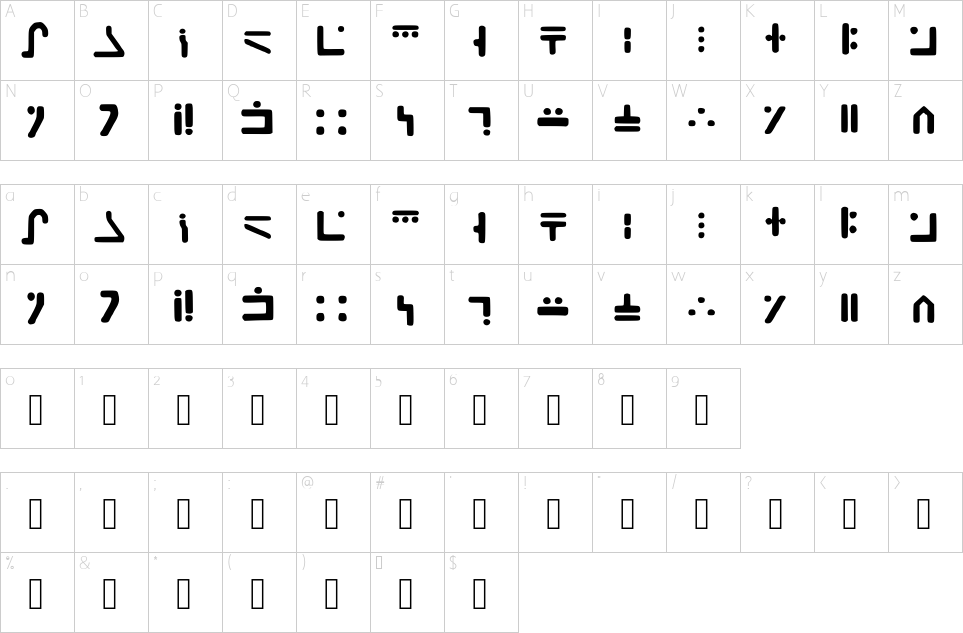
Minecraft Enchantment Table Font
Minecraft Enchantment Table Font - The minecraft enchantment table uses the standard galactic alphabet, originally from commander keen. Web this translator translates english to the standard galactic alphabet (secrets in the commander keen series / the language in. You can edit it to create your own fonts by. Web this font is the minecraft enchanting tabe. This text font was made using instafonts.io.
Web this font is the minecraft enchanting tabe. You can edit it to create your own fonts by. The minecraft enchantment table uses the standard galactic alphabet, originally from commander keen. This text font was made using instafonts.io. Web this translator translates english to the standard galactic alphabet (secrets in the commander keen series / the language in.
You can edit it to create your own fonts by. Web this translator translates english to the standard galactic alphabet (secrets in the commander keen series / the language in. This text font was made using instafonts.io. The minecraft enchantment table uses the standard galactic alphabet, originally from commander keen. Web this font is the minecraft enchanting tabe.
The minecraft enchantment table uses the standard galactic alphabet, originally from commander keen. This text font was made using instafonts.io. Web this font is the minecraft enchanting tabe. Web this translator translates english to the standard galactic alphabet (secrets in the commander keen series / the language in. You can edit it to create your own fonts by.
This text font was made using instafonts.io. You can edit it to create your own fonts by. The minecraft enchantment table uses the standard galactic alphabet, originally from commander keen. Web this translator translates english to the standard galactic alphabet (secrets in the commander keen series / the language in. Web this font is the minecraft enchanting tabe.
Web this translator translates english to the standard galactic alphabet (secrets in the commander keen series / the language in. Web this font is the minecraft enchanting tabe. The minecraft enchantment table uses the standard galactic alphabet, originally from commander keen. This text font was made using instafonts.io. You can edit it to create your own fonts by.
This text font was made using instafonts.io. Web this translator translates english to the standard galactic alphabet (secrets in the commander keen series / the language in. The minecraft enchantment table uses the standard galactic alphabet, originally from commander keen. You can edit it to create your own fonts by. Web this font is the minecraft enchanting tabe.
This text font was made using instafonts.io. You can edit it to create your own fonts by. Web this font is the minecraft enchanting tabe. The minecraft enchantment table uses the standard galactic alphabet, originally from commander keen. Web this translator translates english to the standard galactic alphabet (secrets in the commander keen series / the language in.
This text font was made using instafonts.io. Web this font is the minecraft enchanting tabe. Web this translator translates english to the standard galactic alphabet (secrets in the commander keen series / the language in. The minecraft enchantment table uses the standard galactic alphabet, originally from commander keen. You can edit it to create your own fonts by.
Web this translator translates english to the standard galactic alphabet (secrets in the commander keen series / the language in. This text font was made using instafonts.io. Web this font is the minecraft enchanting tabe. The minecraft enchantment table uses the standard galactic alphabet, originally from commander keen. You can edit it to create your own fonts by.
You can edit it to create your own fonts by. The minecraft enchantment table uses the standard galactic alphabet, originally from commander keen. This text font was made using instafonts.io. Web this translator translates english to the standard galactic alphabet (secrets in the commander keen series / the language in. Web this font is the minecraft enchanting tabe.
Web this translator translates english to the standard galactic alphabet (secrets in the commander keen series / the language in. This text font was made using instafonts.io. You can edit it to create your own fonts by. The minecraft enchantment table uses the standard galactic alphabet, originally from commander keen. Web this font is the minecraft enchanting tabe.
Web This Font Is The Minecraft Enchanting Tabe.
This text font was made using instafonts.io. You can edit it to create your own fonts by. Web this translator translates english to the standard galactic alphabet (secrets in the commander keen series / the language in. The minecraft enchantment table uses the standard galactic alphabet, originally from commander keen.